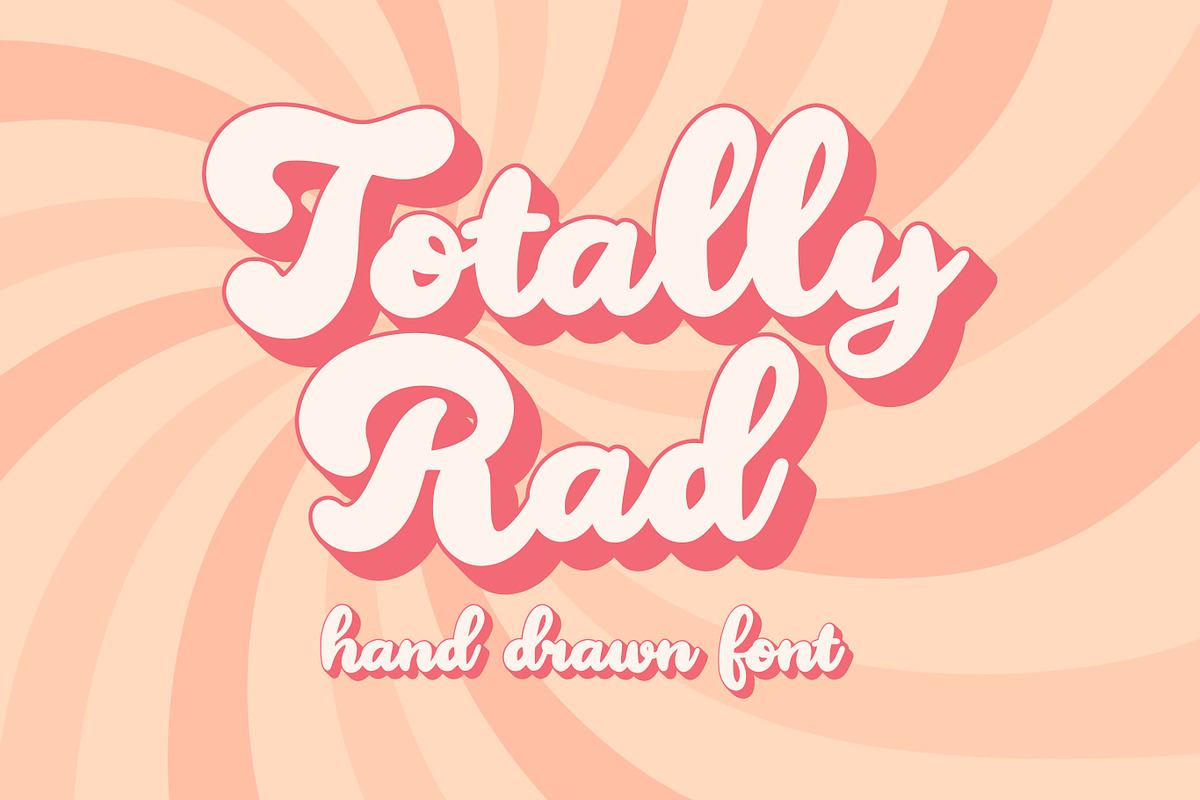
Totally Rad - Retro Font Free Download is a bold and energetic typeface inspired by vintage and retro design trends. Perfect for creating eye-catching logos, posters, and branding, this font brings a fun, nostalgic vibe to your creative projects. Its unique letterforms and dynamic style make it ideal for designs that need to stand out with a retro flair.